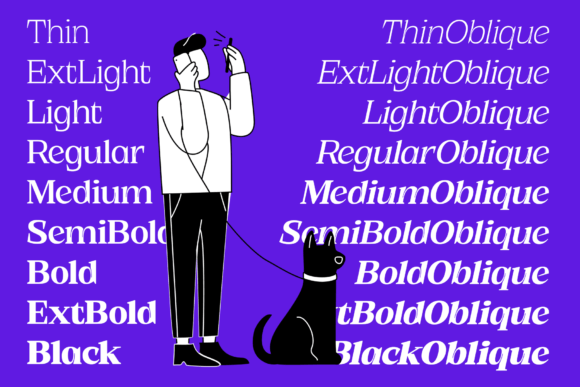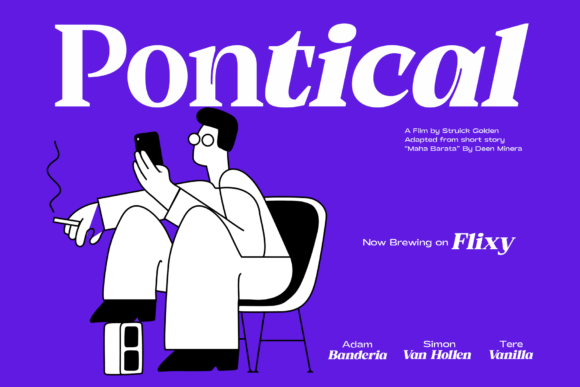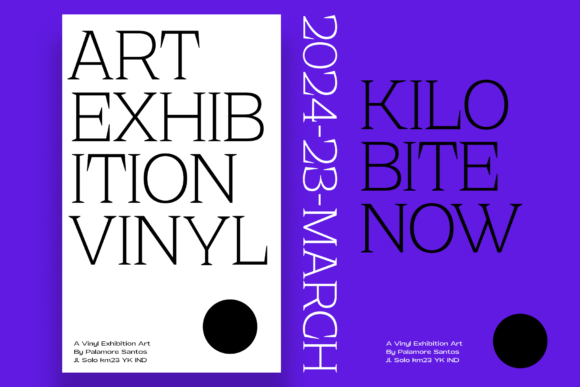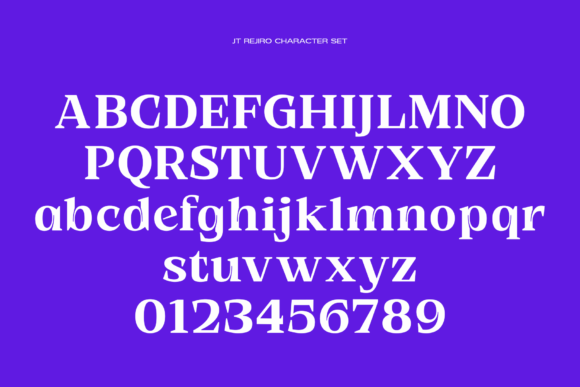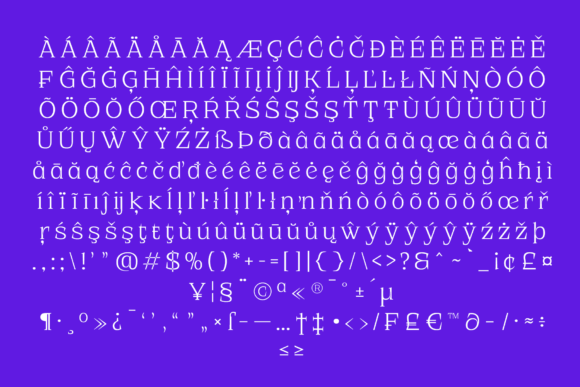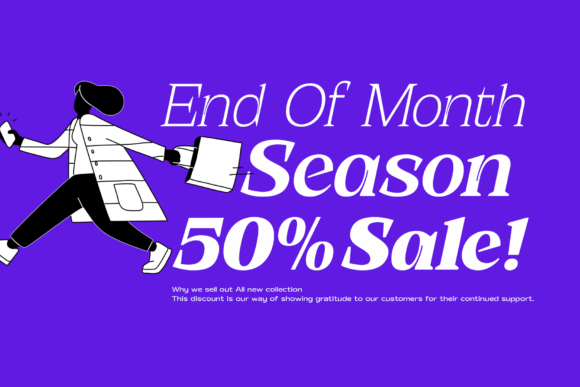
Introduction to Rejiro Font
Rejiro is a sharp and pointed serif font with a strong style and a special impression crafted by Laire Banyu consisting of 18 weight styles starting from Thin, Extra Light, Light, Regular, Medium, SemiBold, Bold, Extra Bold, and Black.
All have the Oblique type so this was created to give a unified strong and sharp impression Anatomy of letters on the pointed end At thick stem junctions we provide extreme inktrap so that it has a different character from the others.
Key Features of Rejiro Font